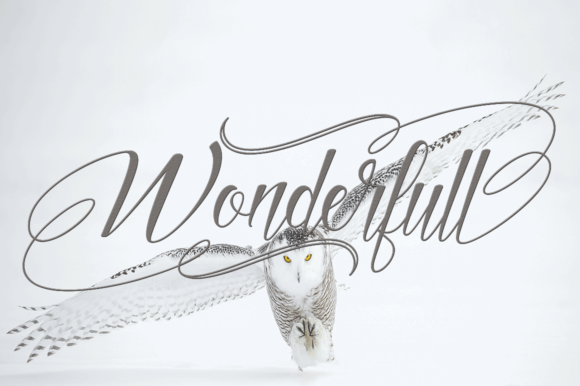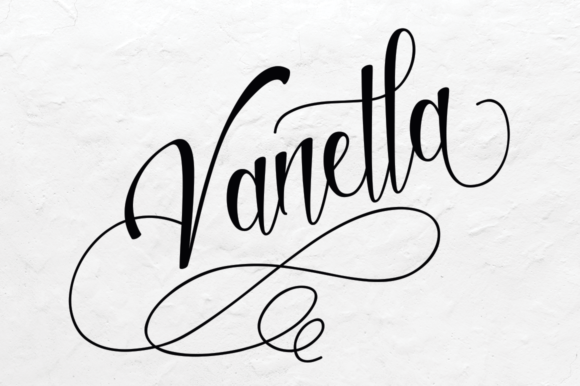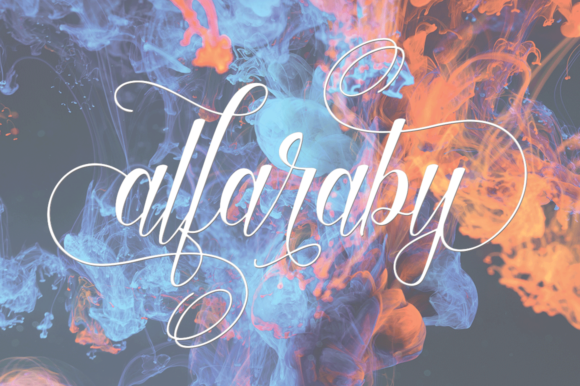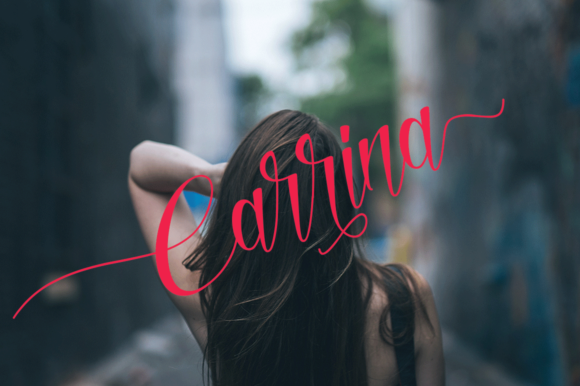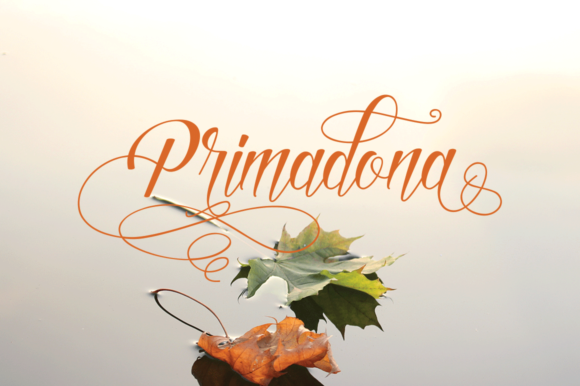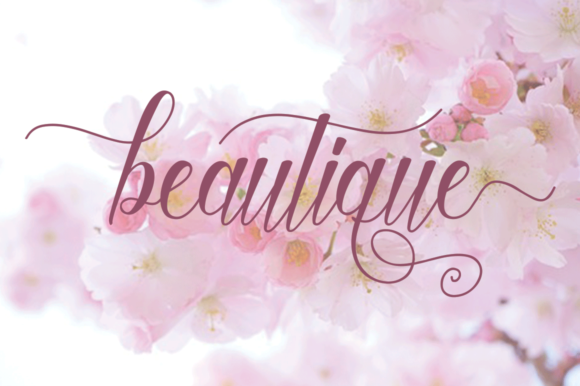
HomeScript FontsMy Heart Font Script Fonts My Heart Font FacebookXPinterestWhatsApp My Heart Font Poster 2 My Heart Font Poster 3 My Heart Font Poster 4 My Heart Font Poster 5 My Heart Font Poster 6 My Heart Font Poster 7 About My Heart Font My Heart is a sweet and charming script font that’s perfect for adding an authentic touch to any design idea. DOWNLOAD NOW People also explored Delimora Script Font Rustic Music Font Churchward Tua Family Solid Navy Bella Canvas 8413 Mockup Tee Rockeh Font Amorpheus Pro Binangkit Font Kick Gaslow Brush Font Discakol Font 299 0 TagsMy Heart Font Previous articleThe Playground FontNext articleRustic Font LEAVE A REPLY Cancel reply Comment: Please enter your comment! Name:* Please enter your name here Email:* You have entered an incorrect email address! Please enter your email address here Website: Save my name, email, and website in this browser for the next time I comment. Personal Use Free Nulshock Bold Personal Use Free Read more about this font Child Writing Free Personal Use Free Read more about this font Black Friday Personal Use Free Read more about this font Osaka Personal Use Free Read more about this font BLOG Fonts That Capture the Spirit of New York City New York City is more than just a place—it’s an experience, a rhythm, a visual language... Exploring Font Trends How to Cut Any Font on Cricut: Convert a Font to SVG (Free) Where to Buy American Fonts Online in 2024